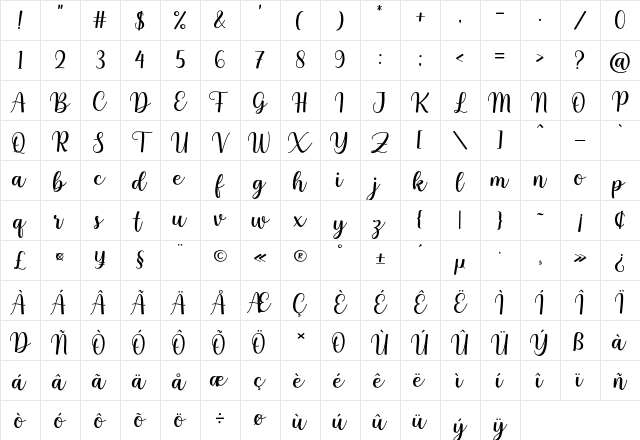
Nuchelle Regular Free Font
Nuchelle Regular
Foundry: Hendra Pratama
Designer: Hendra Pratama
Design Context for Nuchelle
Nuchelle is a composed and adaptable typeface that performs quietly and consistently across a wide range of design contexts.